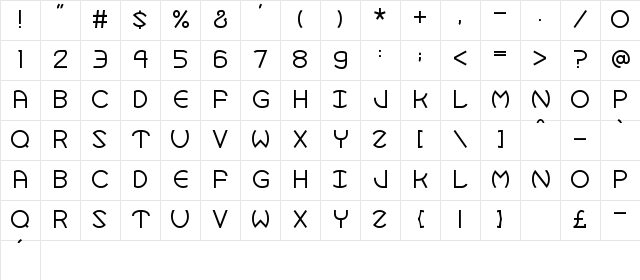
Robotron Normal Free Font
Robotron Normal
Designer: Joseph Dawson
Design Context for Robotron
Robotron is a composed and adaptable typeface that performs quietly and consistently across a wide range of design contexts.